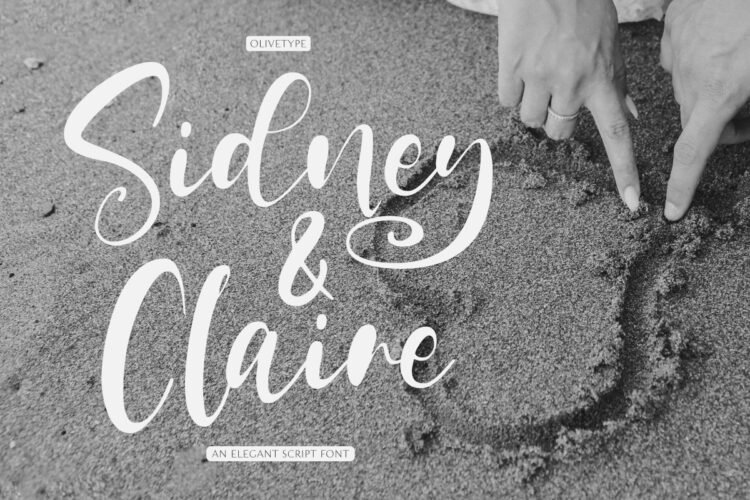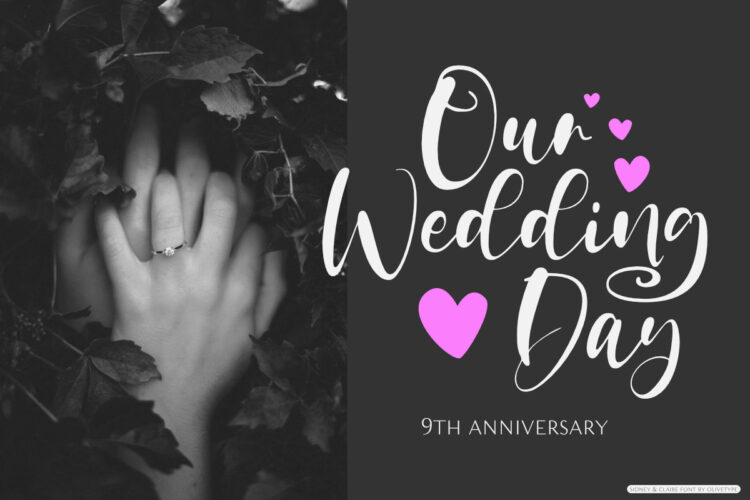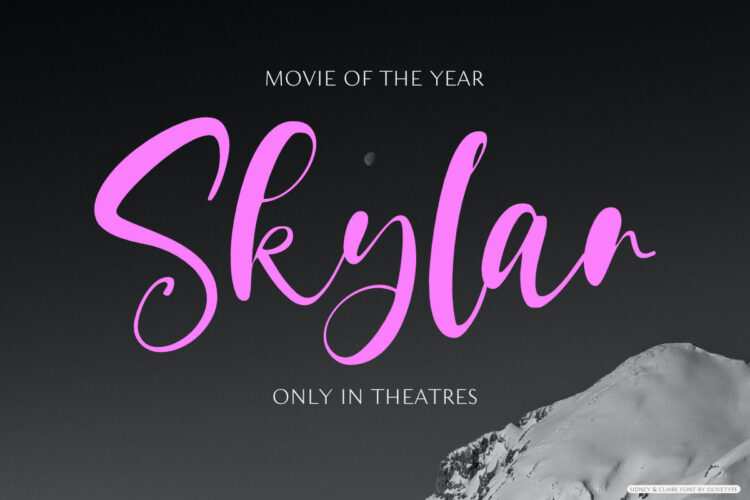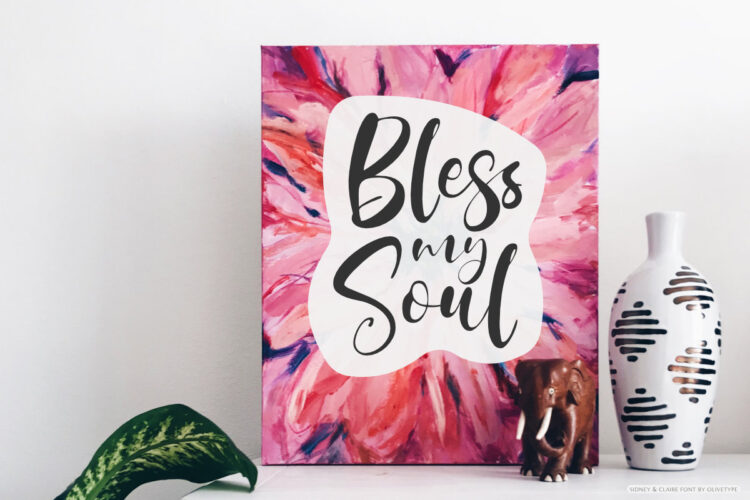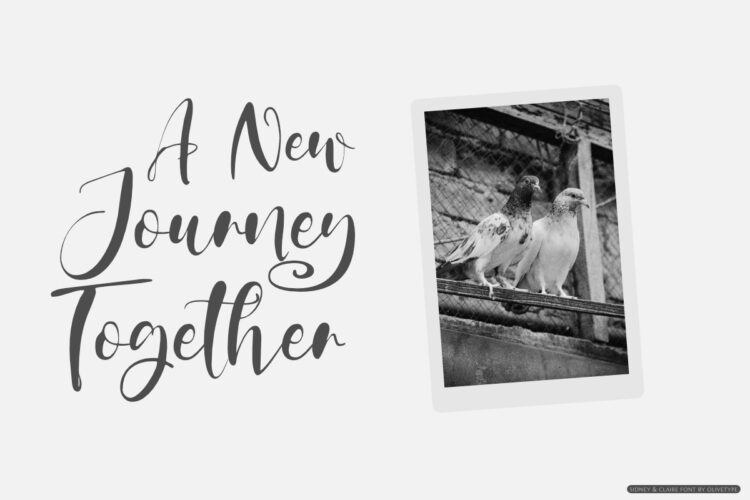
Sidney & Claire is a stylish and elegant script font. Its bold and smooth style makes this font incredibly versatile, fitting a wide variety of creative ideas.
- Basic Latin A-Z, a-z, numbers, symbols, and punctuations
- Sidney & Claire is supporting 66 Languages: from Afrikaans Albanian Catalan Danish to Dutch English Spanish Swedish Zulu.